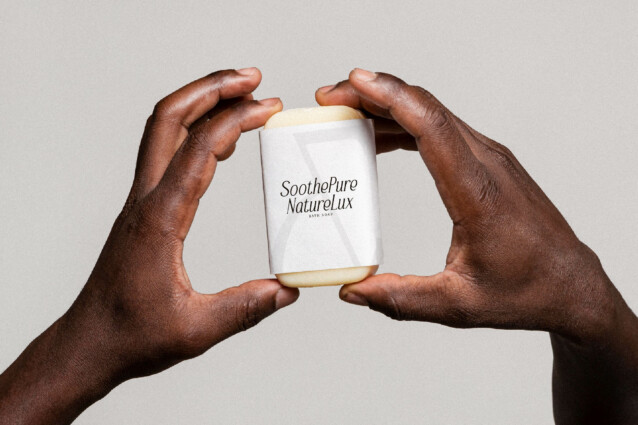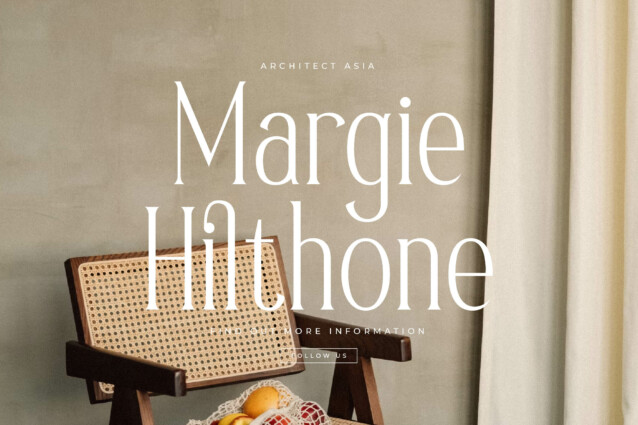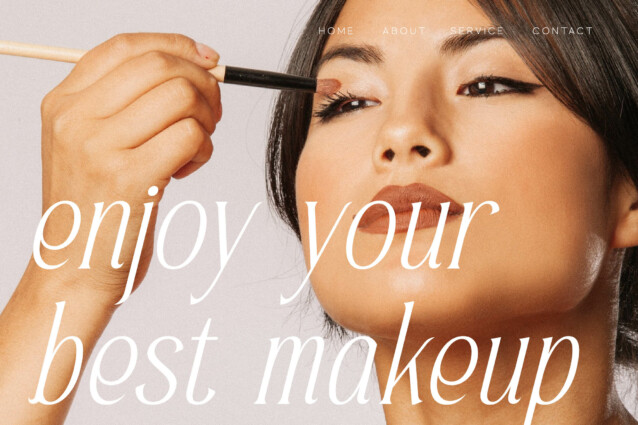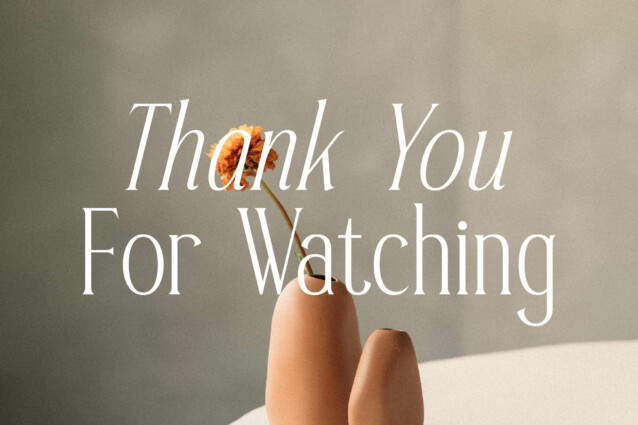
Safilms Crawford Font is a serif modern and classic typeface that has own unique style & modern look. This typeface is perfect for an elegant & luxury logo, book or movie title design, fashion brand, magazine, clothes, lettering, quotes, and so much more.